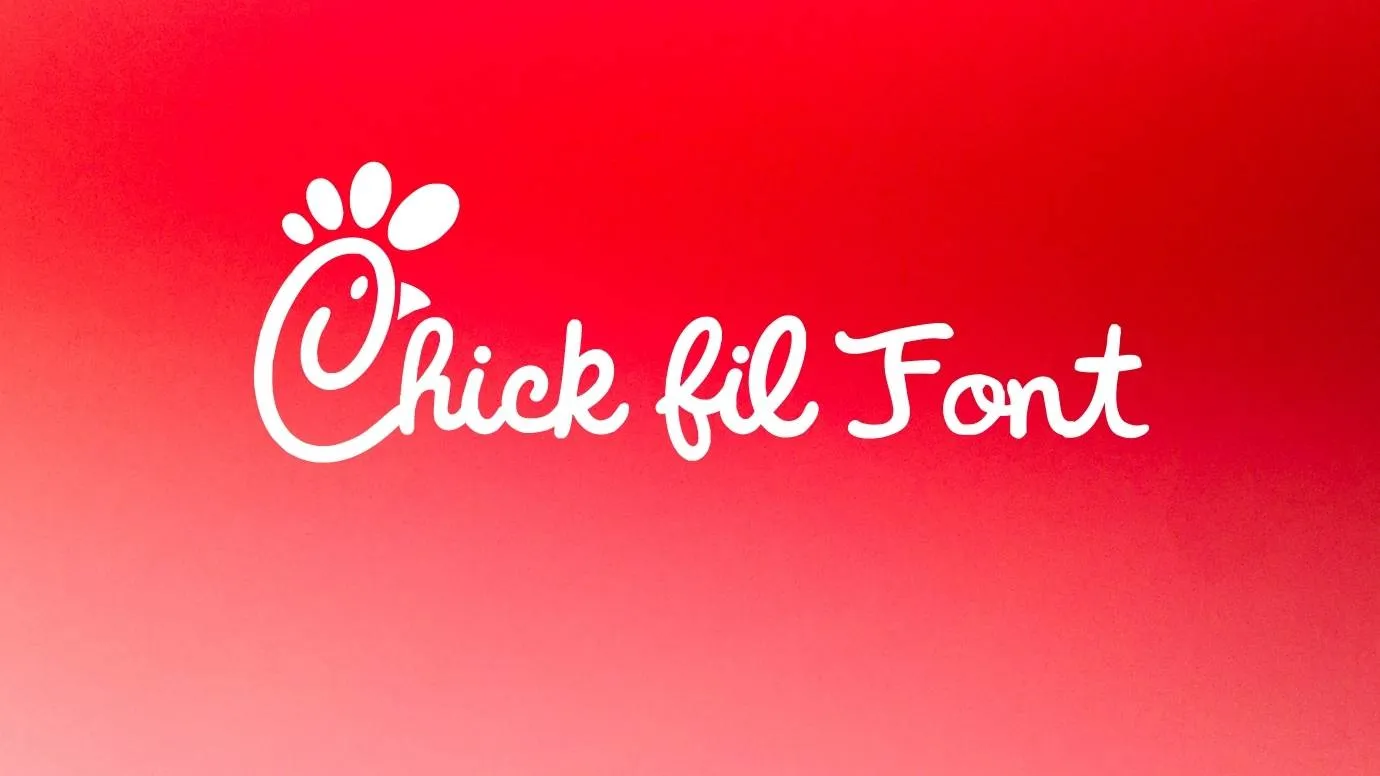
Chick Fil Font was designed by the Richards Group. It belongs to the display font family. An American Restaurant that operates 2200 other restaurants since the year 1946.
This attractive and classic font family has available in 93 different characters and 74 popular glyphs. Features of Befalow Rustic Font are similar to this font. These glyphs make its features so much more advanced.
Chick Fil Font Family